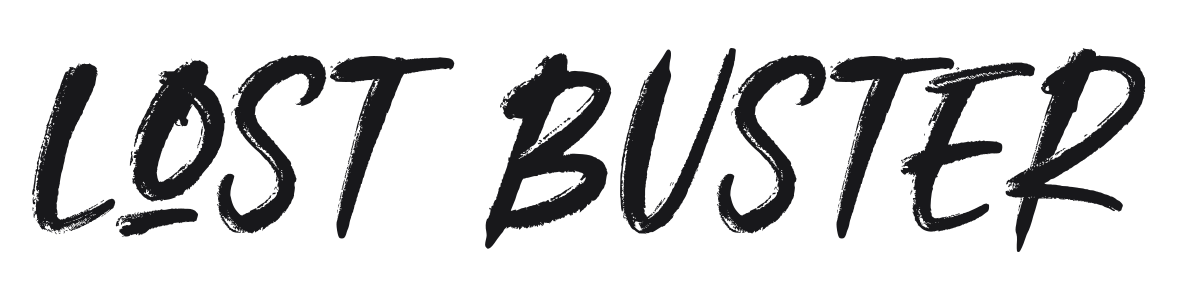
Lost Buster
Lost Buster is a bold brush script with heavy ink texture and an aggressive forward lean. Every stroke carries visible bristle drag and splatter, giving it an authentic hand-painted quality that feels closer to spray-can art than calligraphy. It works at large sizes where the texture can breathe.